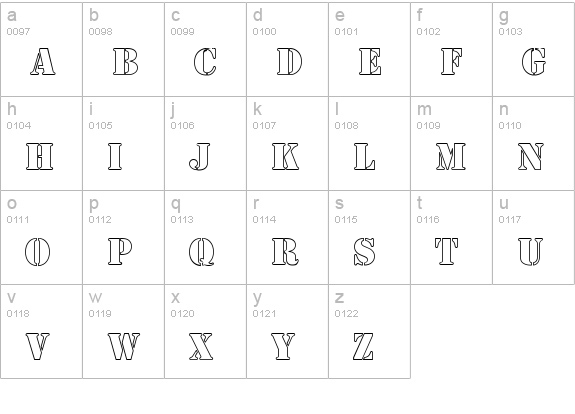
Rudy Hollow Condensed is a distinctive, condensed-width variant in the Rudy typeface family \xE2\x80\x94 well suited to design and typography projects.
Rudy Hollow Condensed font is a sleek and modern typeface that exudes sophistication and elegance. Its condensed design allows for a clean and organized look, making it perfect for a wide range of design projects. The unique hollow style adds a touch of creativity and flair, making this font stand out from the crowd. Best of all, Rudy Hollow Condensed font is completely free to download at FontsMarket.com. This means you can easily access this stylish font and use it in your projects without any cost. Whether you're designing a poster, logo, website, or any other creative project, Rudy Hollow Condensed font is sure to elevate your designs and make them truly memorable. Download this stunning font today and take your designs to the next level!